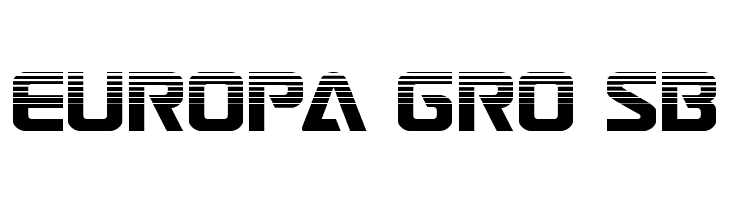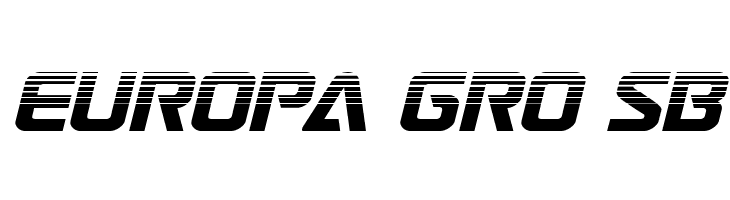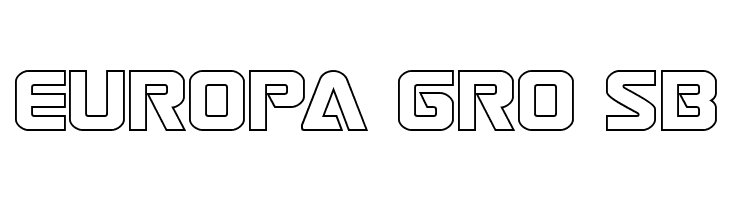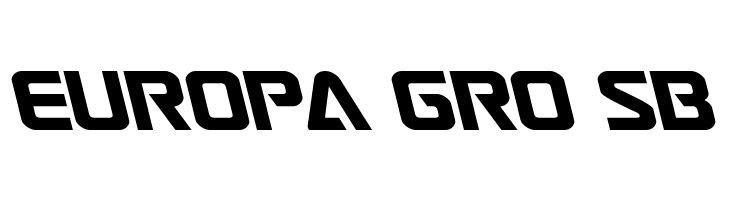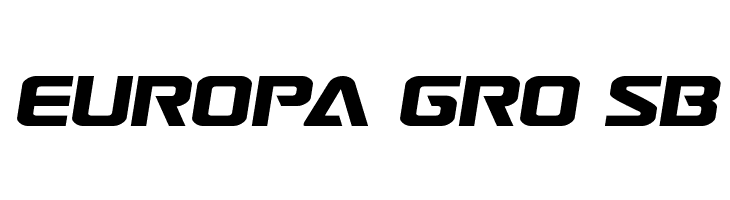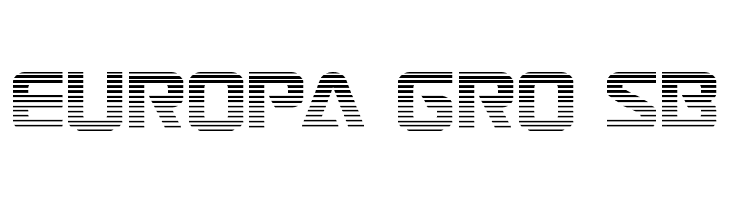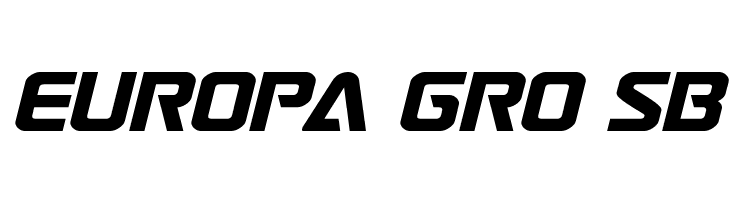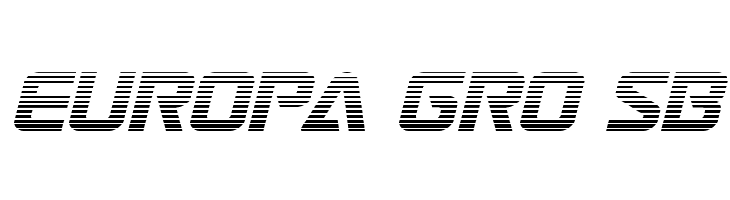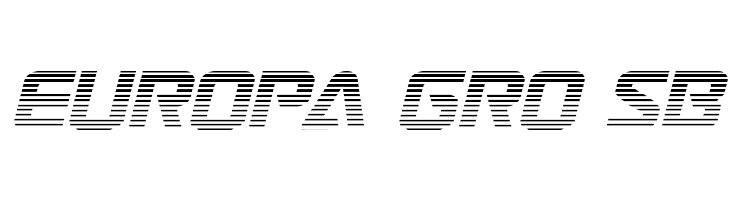
A bold, expanded, semi-italic font with a futuristic and dynamic design.
A futuristic, bold font with a gradient effect created by horizontal lines.
A futuristic, line-patterned font with a bold, geometric style.
A futuristic italic font with a dynamic, linear gradient design.
A futuristic italic font with gradient lines and a dynamic, high-tech style.
A futuristic, bold font with a halftone effect and geometric design.
A bold, italicized font with a futuristic halftone effect.
A bold, futuristic italic font with angular, geometric characters.
A bold, futuristic font with angular, slanted characters and a tech-inspired style.
A futuristic, geometric outline font with a bold and angular design.